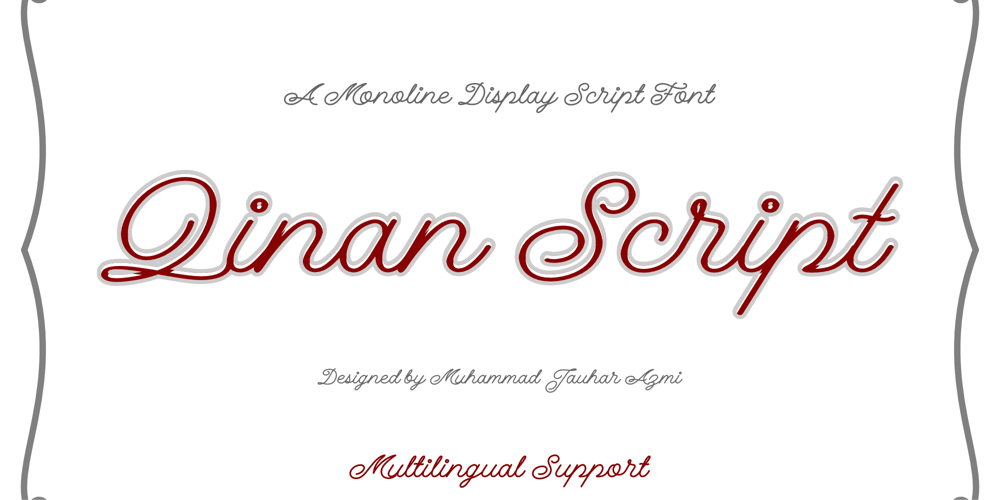
Qinan Script Font Family was designed by Muhammad Jauhar Azmi and published by Brainware Graphic. Qinan Script contains 1 styles and family package options. Qinan Script is a stylish monoline display font that features smooth, flowing letters. Its elegant design makes it perfect for headlines, logos, and creative projects. The font combines a modern look with a touch of handwritten charm, making your text stand out beautifully.